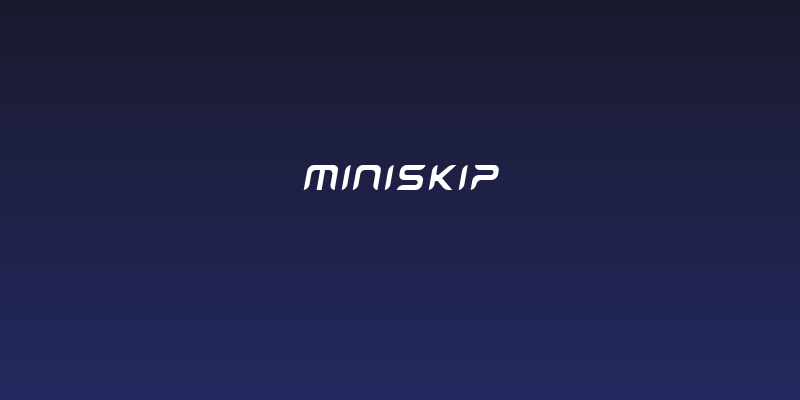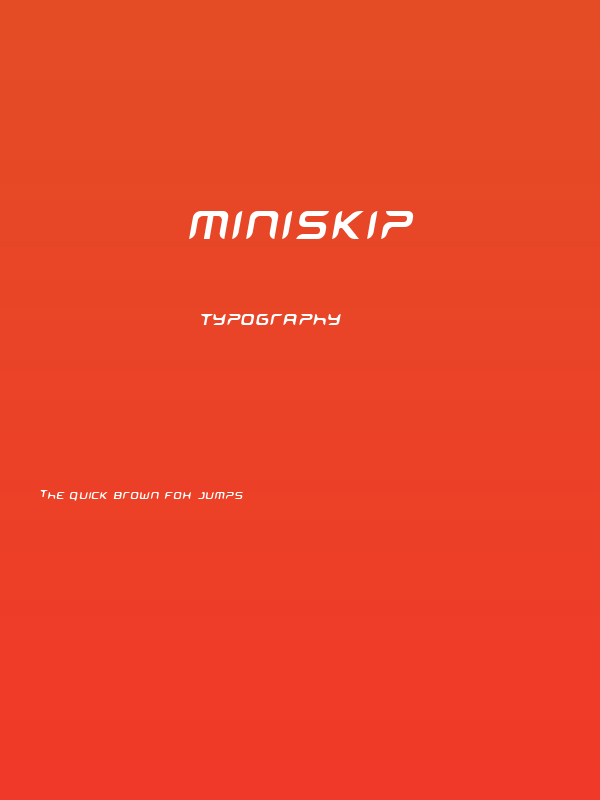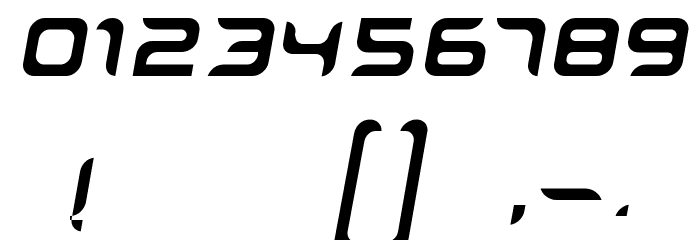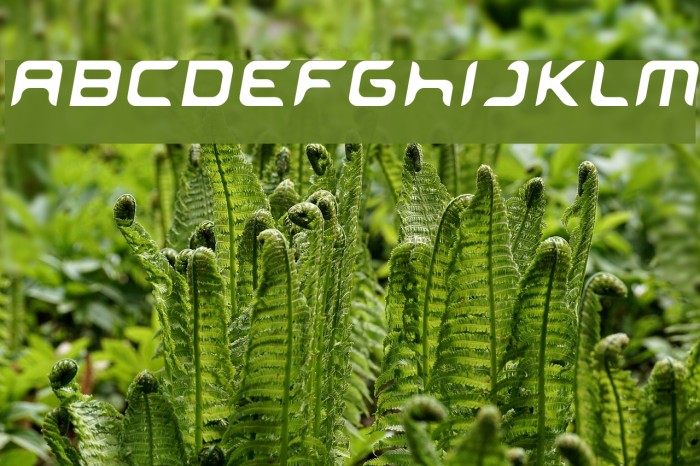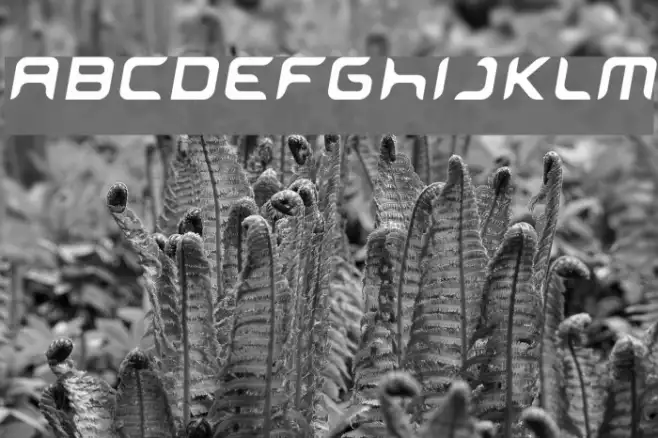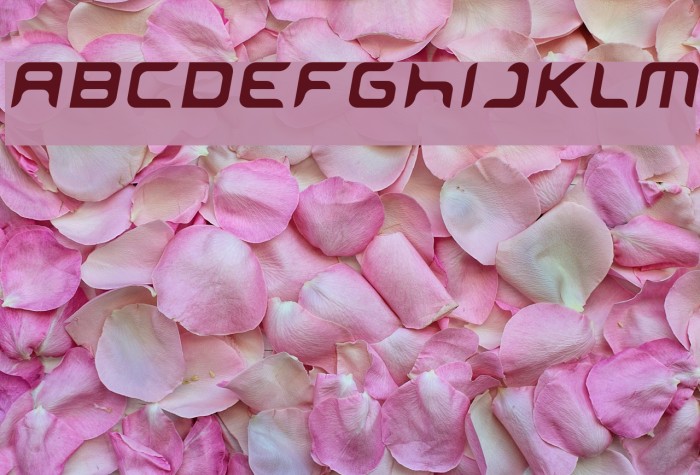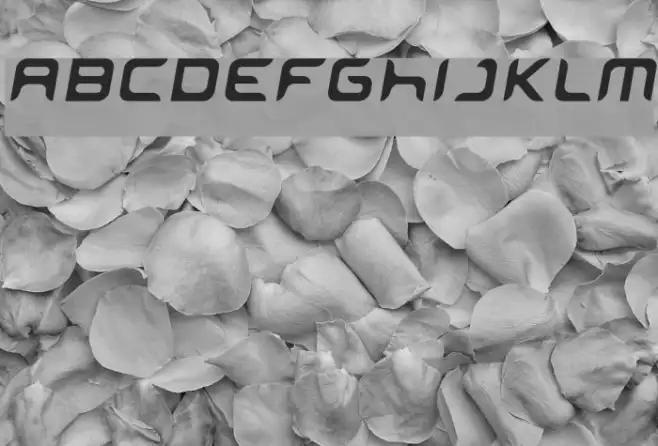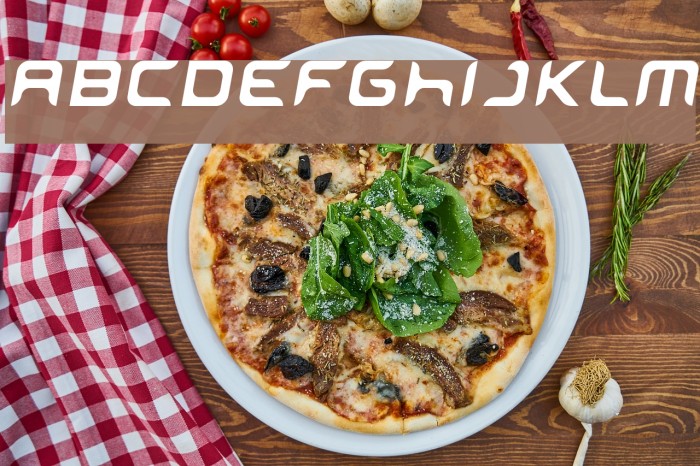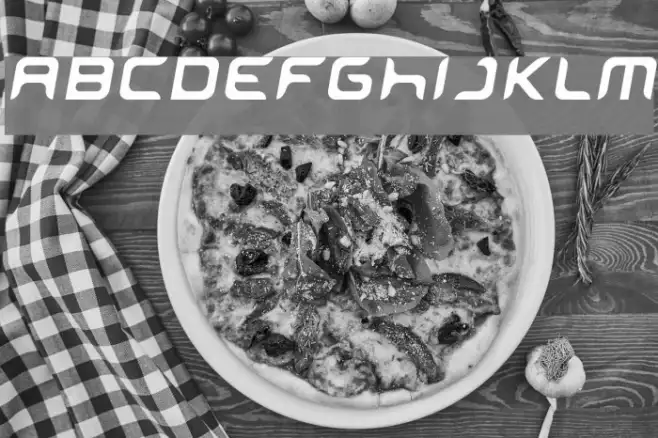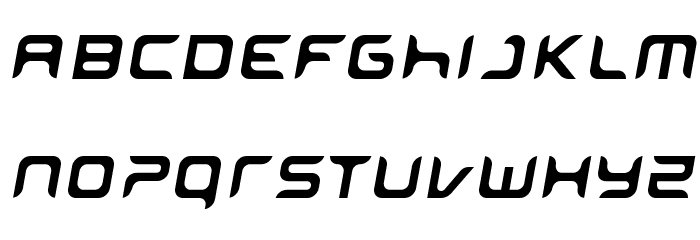
miniskip Font
miniskip Description
This font features a futuristic and sleek design with rounded edges and a slightly italicized form, giving it a dynamic and modern appearance. The characters are bold and have a consistent stroke width, contributing to a uniform look across all letters and numbers. The font maintains a balance between readability and style, making it suitable for various applications. The unique curvature and slant of the letters add a sense of motion and energy, ideal for projects that require a contemporary and innovative feel.
| Proposed Projects | Ideal for technology branding, sci-fi themed designs, video game interfaces, and modern advertising campaigns. |